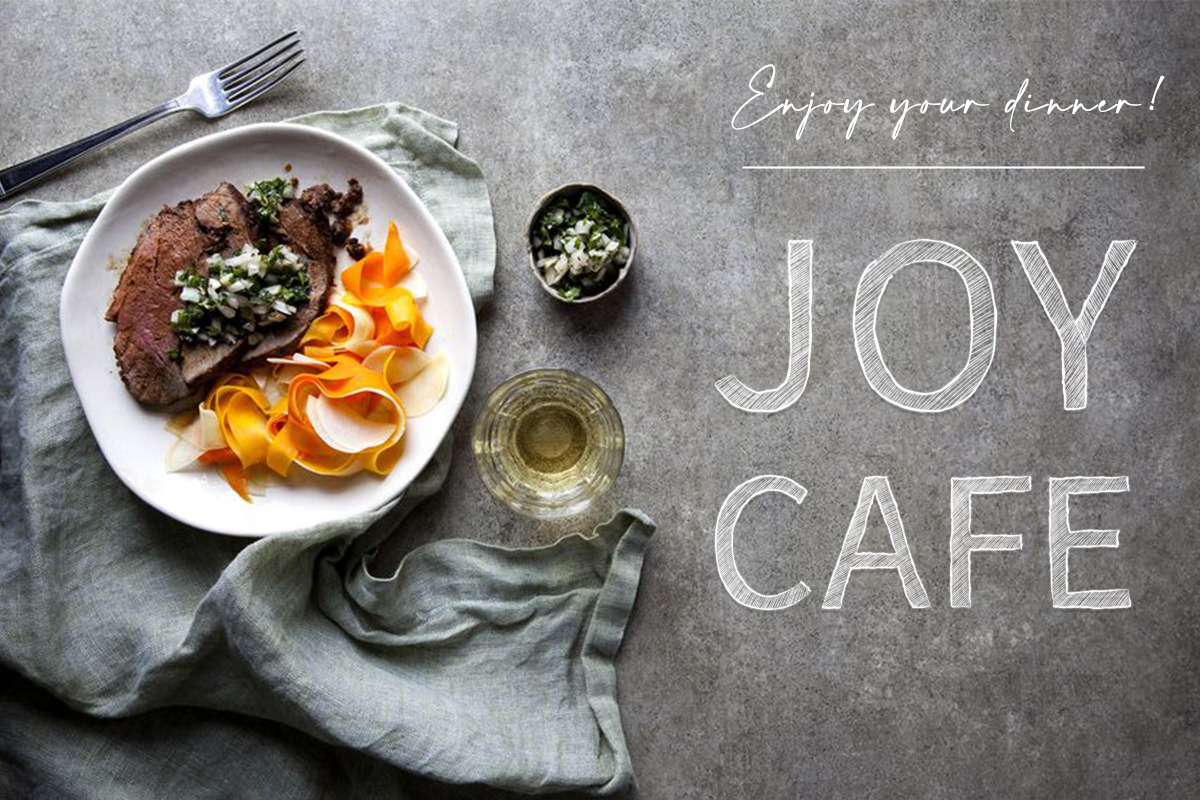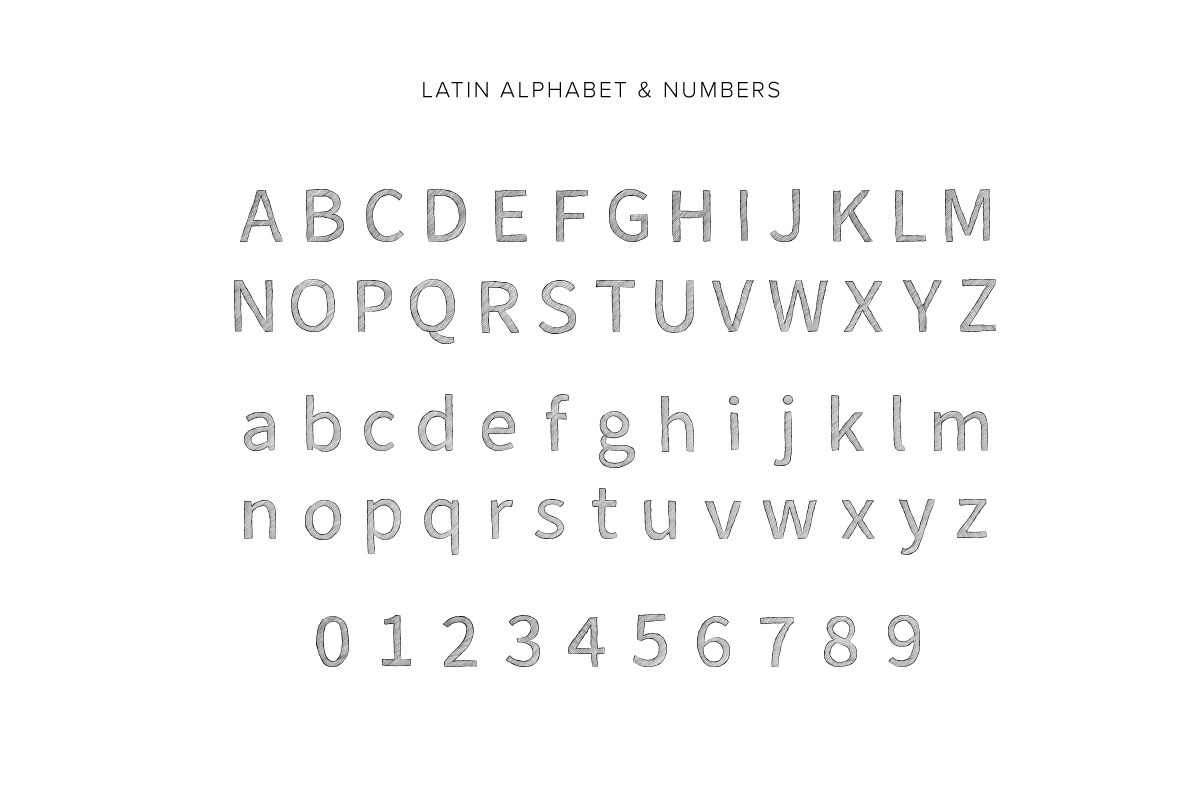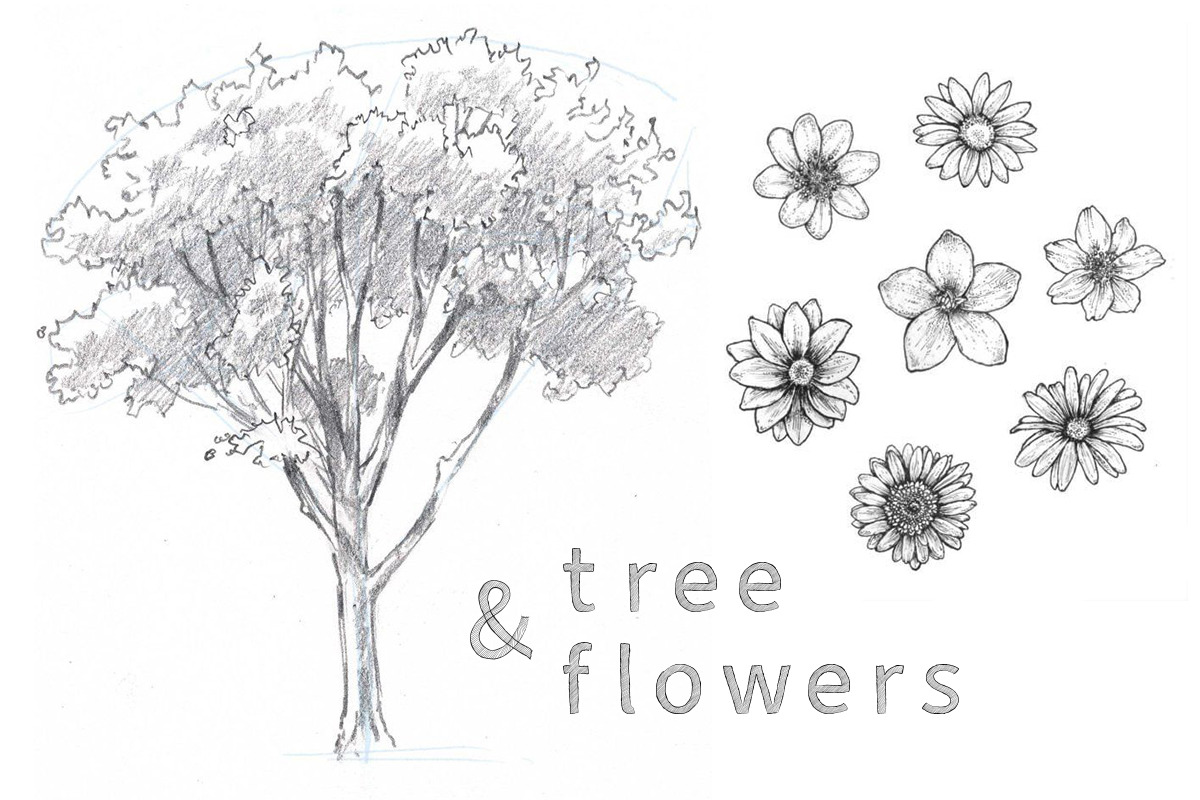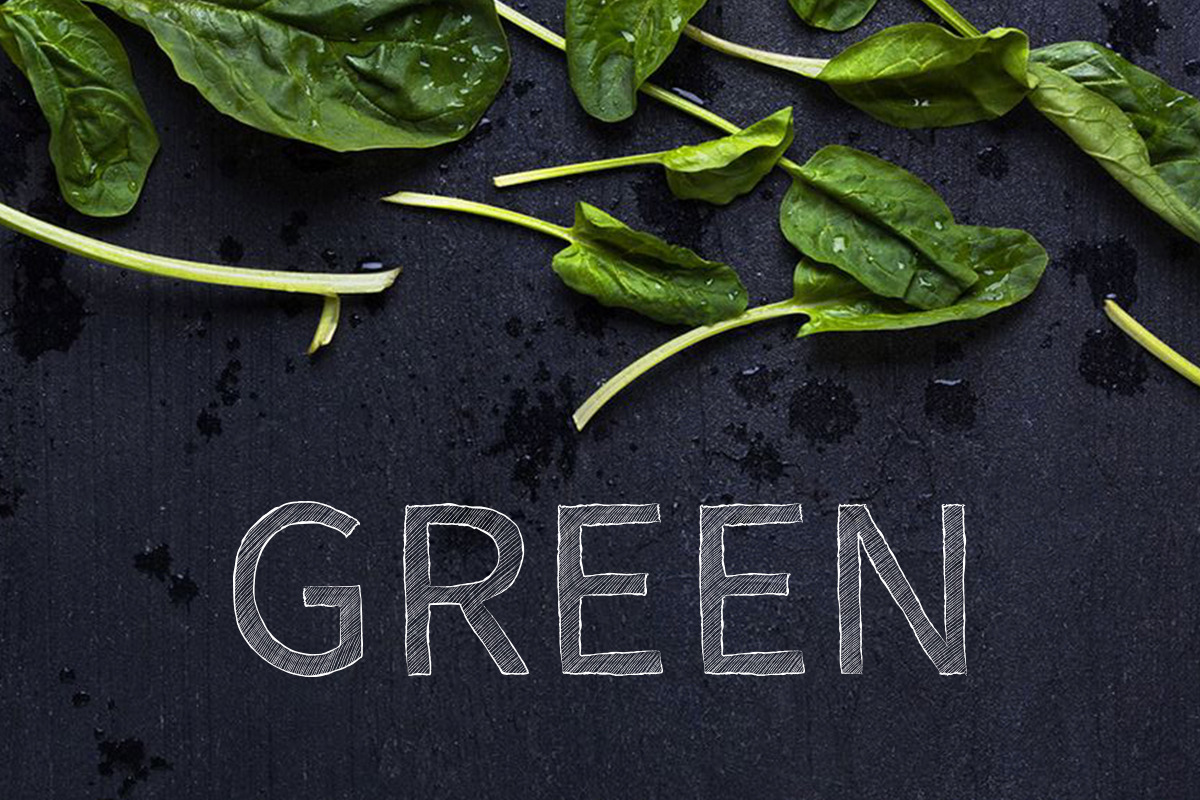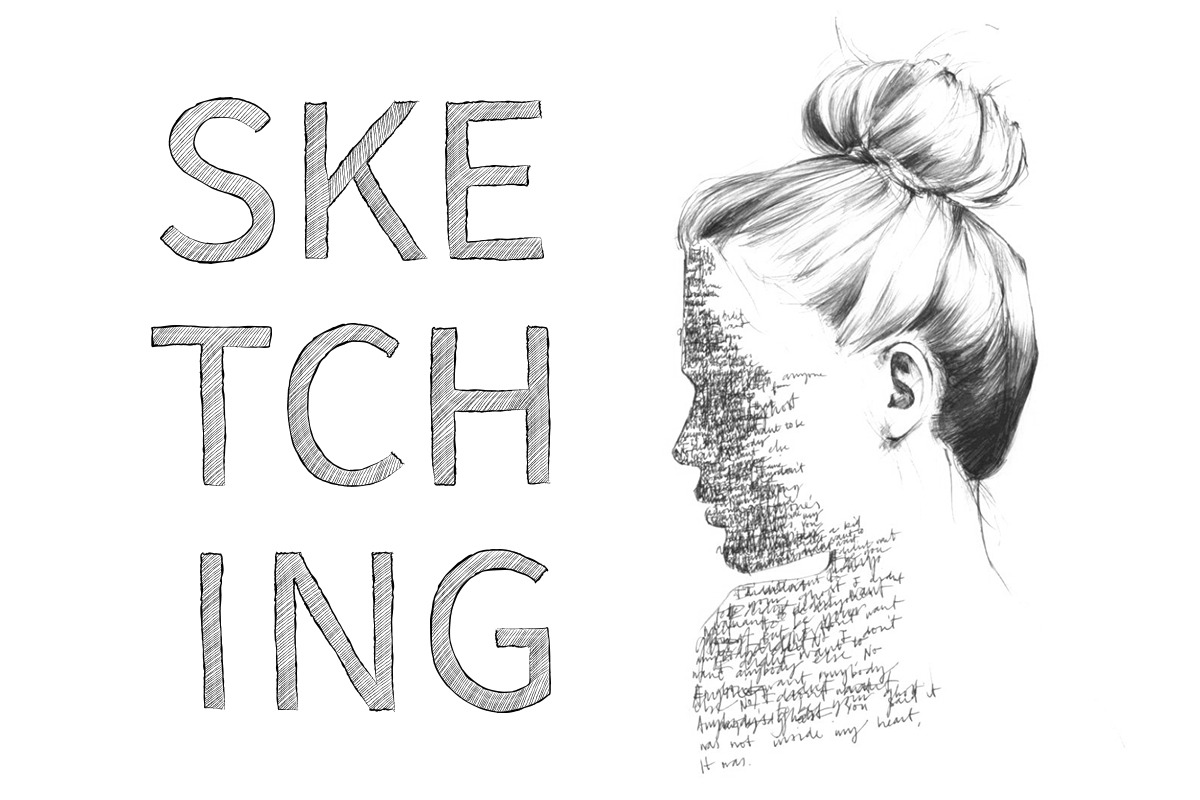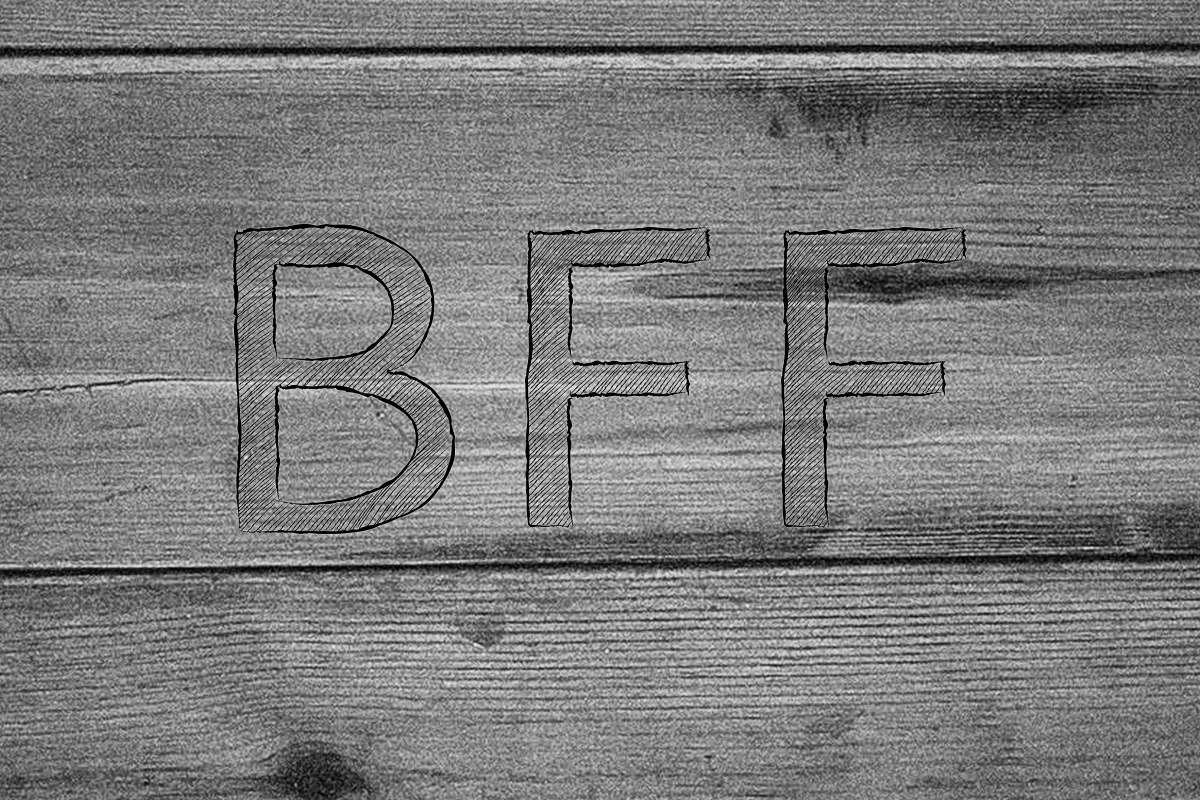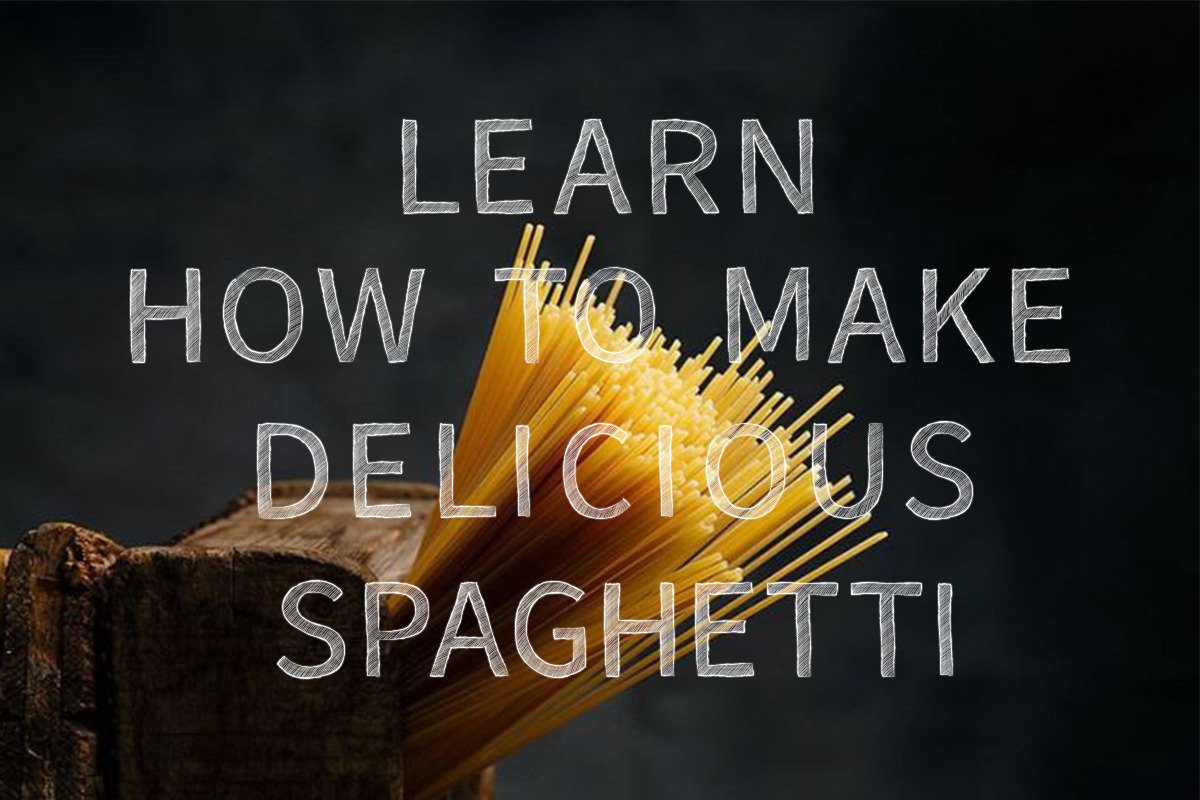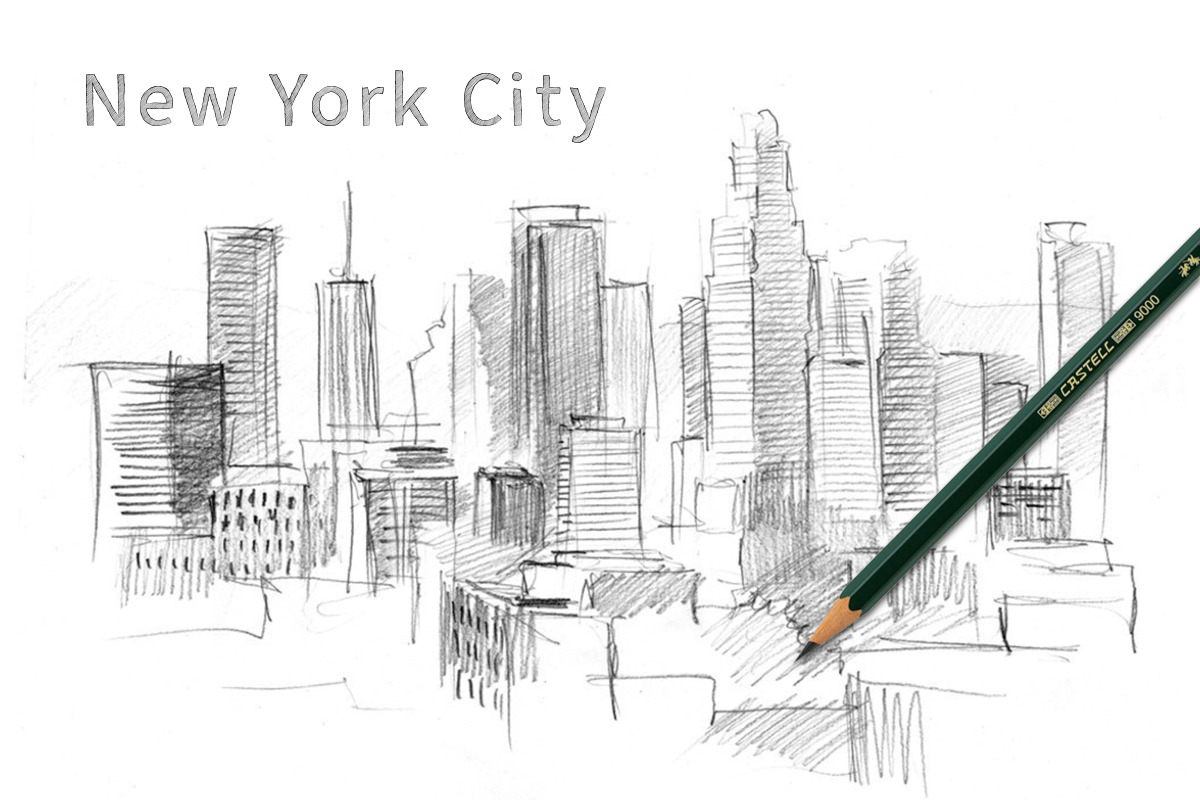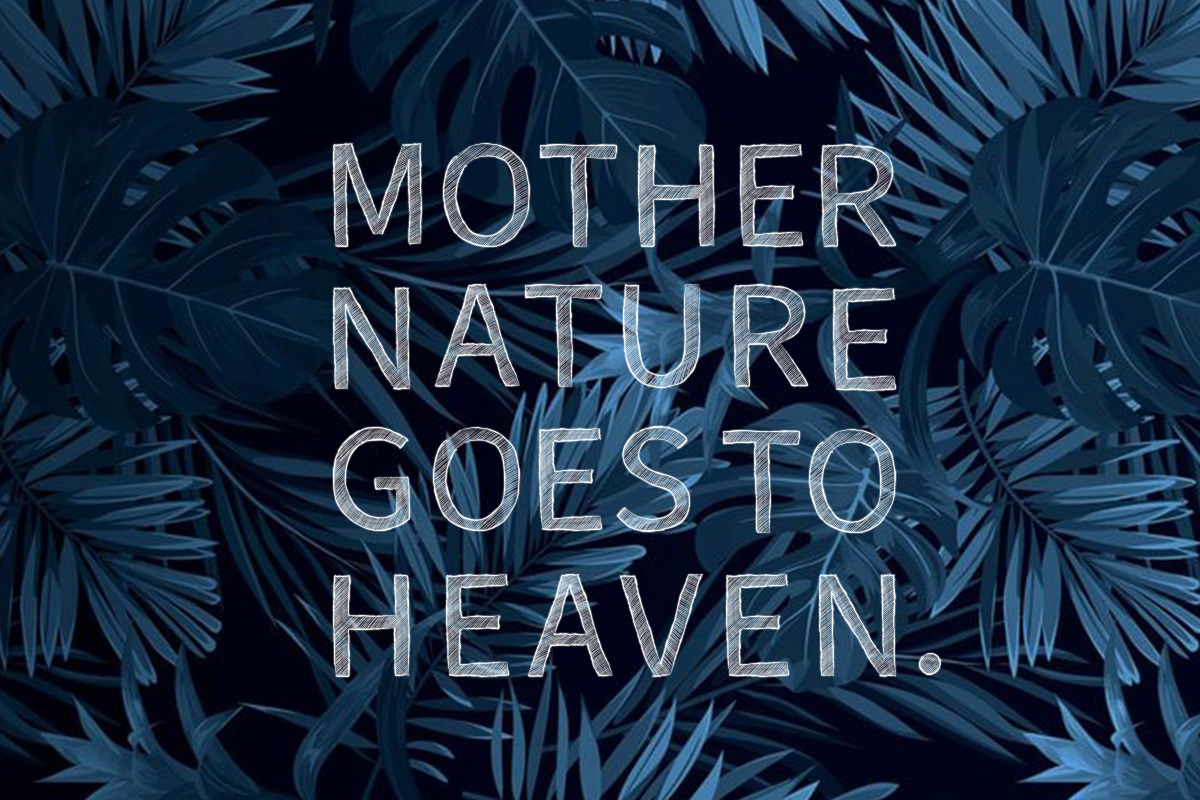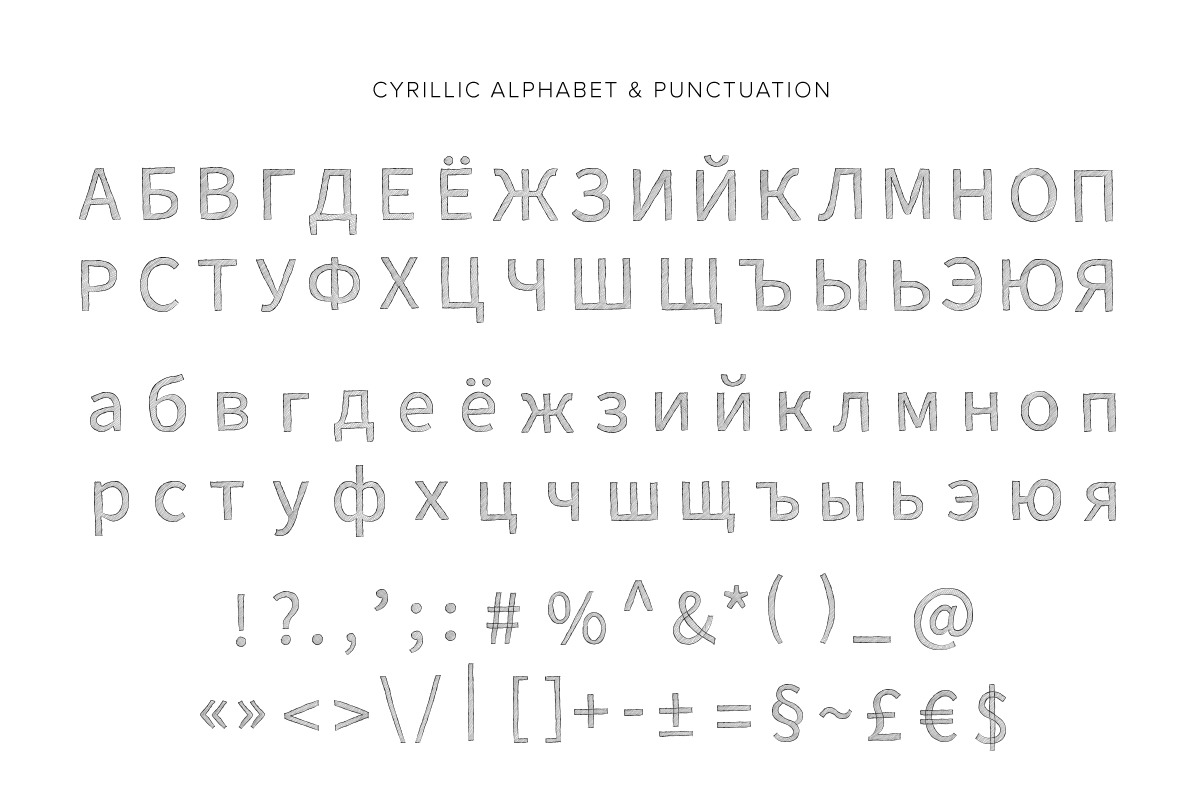
Dashed Handwritten Alphabet
Hi and welcome to the project named 'Dashed'!
Here are a handwritten characters with dashed decor and it has something similar to sketching. The package includes Upper and Lowercase Latin and Cyrillic alphabets, numbers and punctuation. It has an effect of chalk on blackboard.
Dashed features:
- x 33 Cyrillic А-Я and а-я
- 0-9 numbers
- punctuation symbols